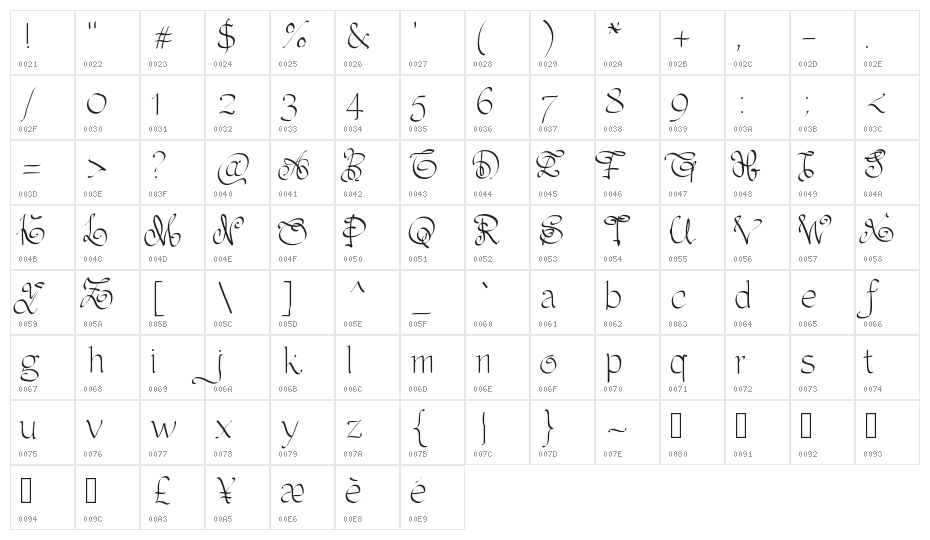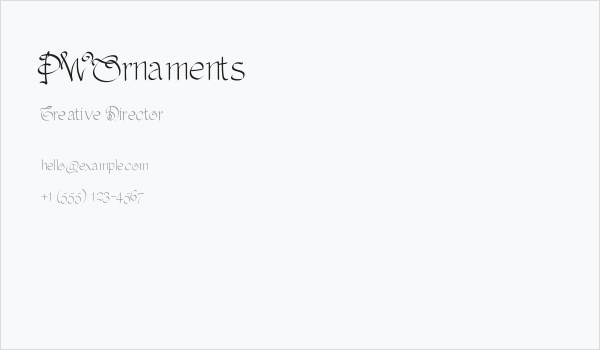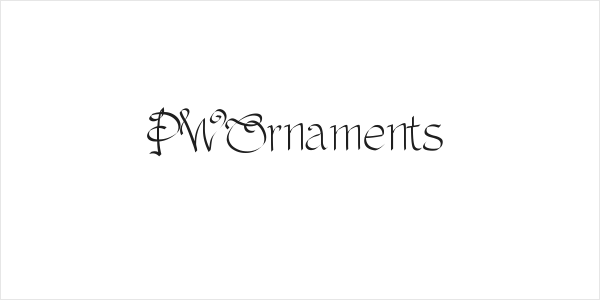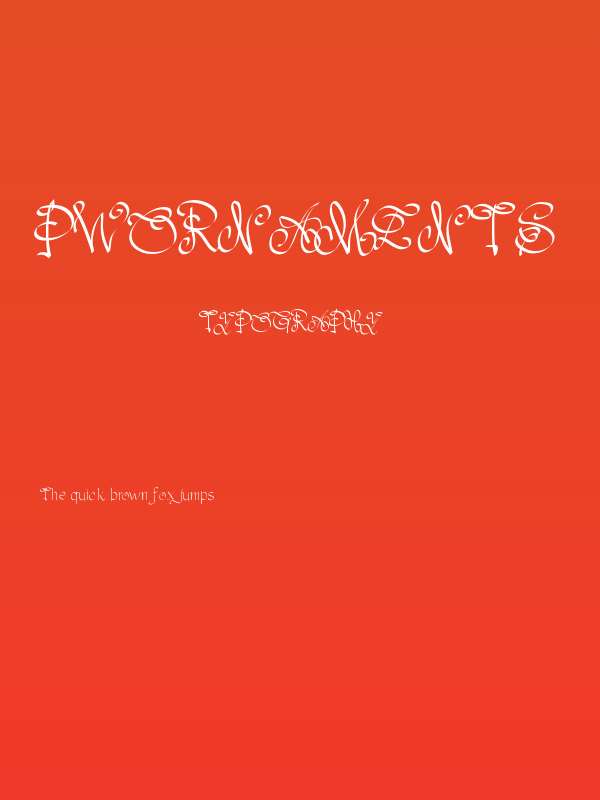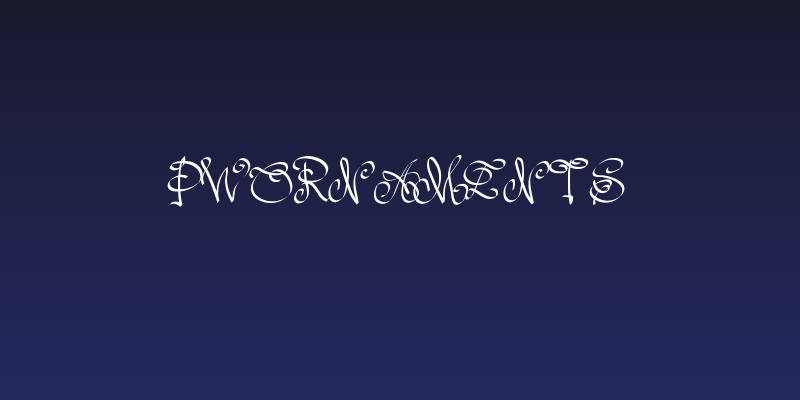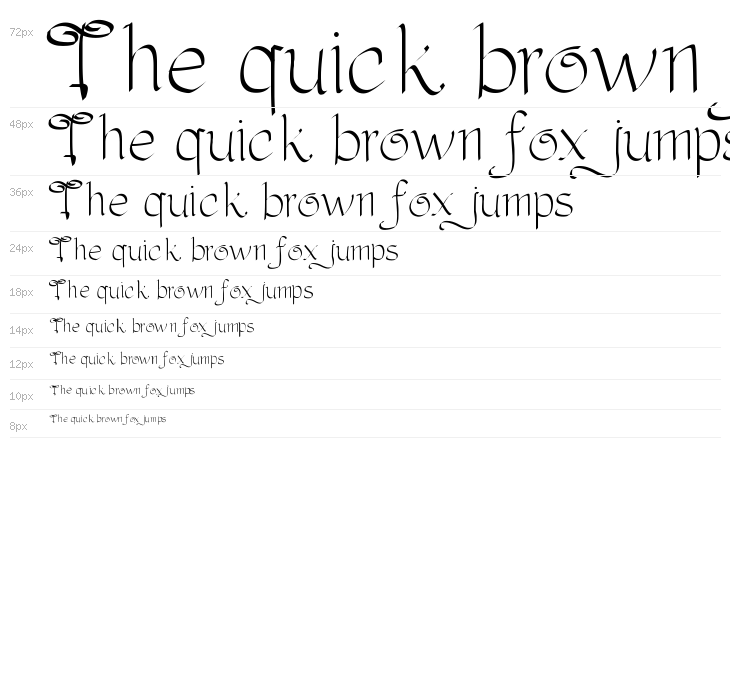
PWOrnaments Font
PWOrnaments Description
This font is a decorative and ornate typeface that combines elements of calligraphy and intricate design. The uppercase letters are highly stylized with elaborate swirls and flourishes, giving them a regal and artistic appearance. The lowercase letters are more subdued but still maintain a sense of elegance and flow. The numerals are consistent with the overall style, featuring subtle curves and embellishments. Special characters are designed with the same attention to detail, making them suitable for decorative purposes. This font is ideal for projects that require a touch of sophistication and creativity.
| Proposed Projects | Ideal for wedding invitations, luxury branding, artistic posters, and decorative headings. |